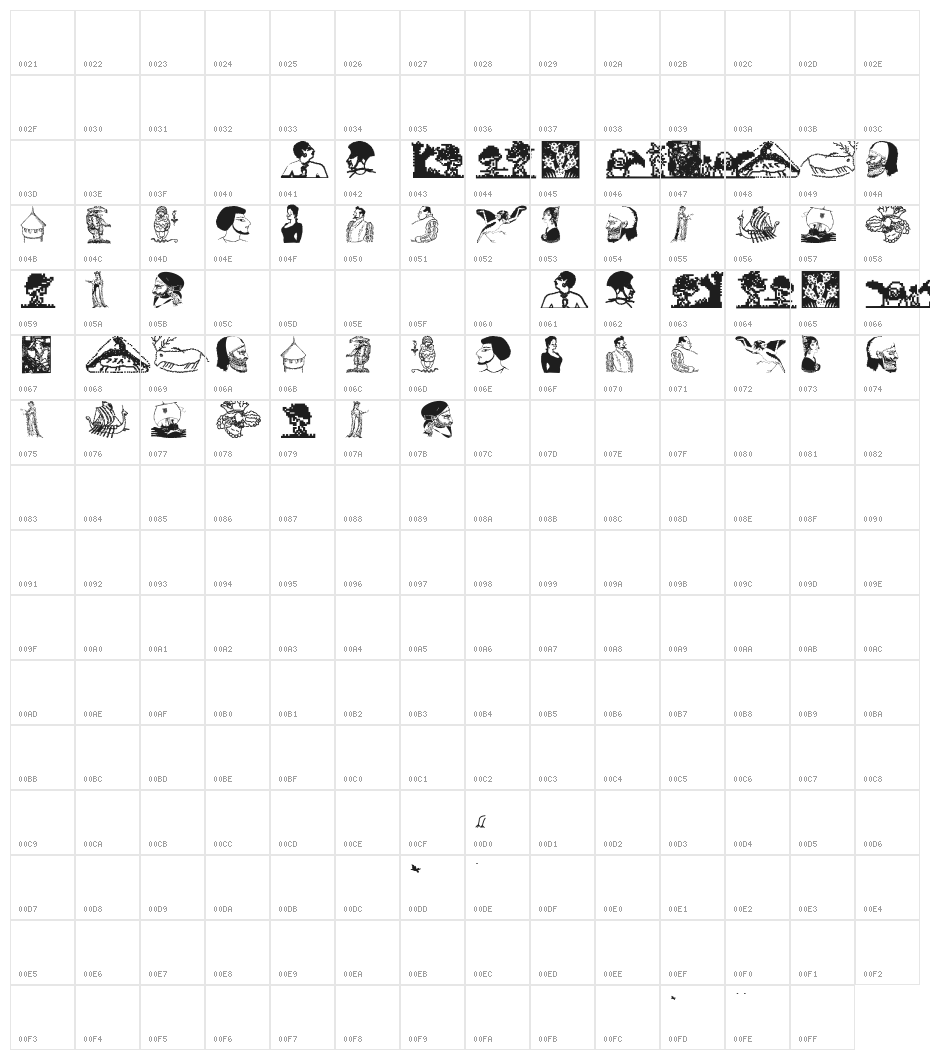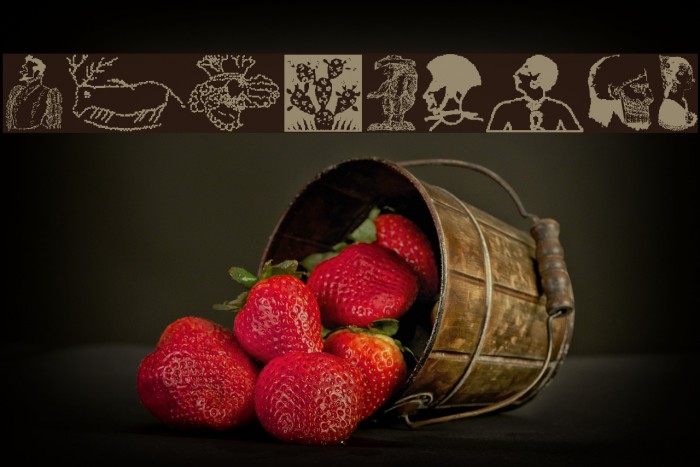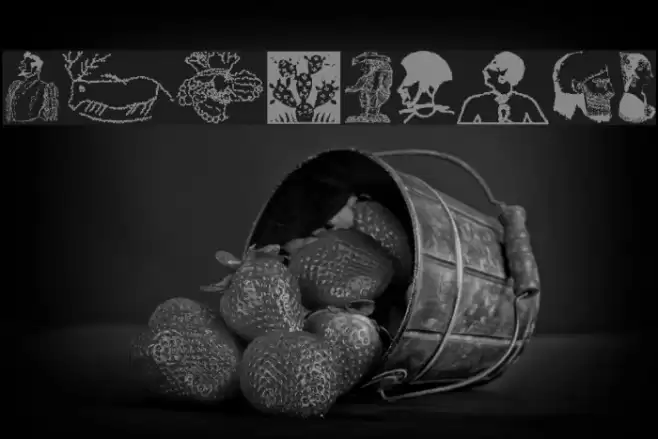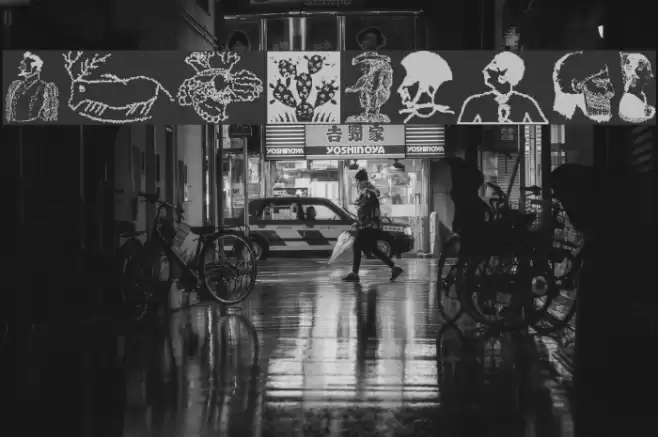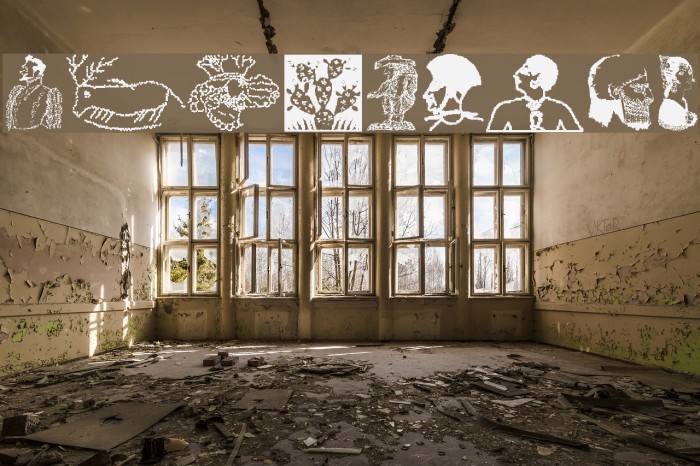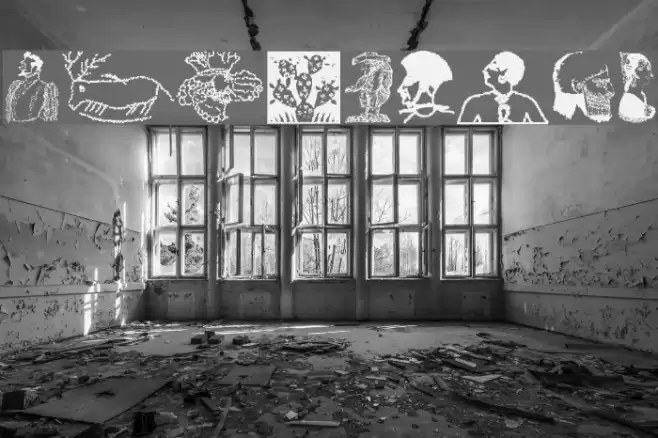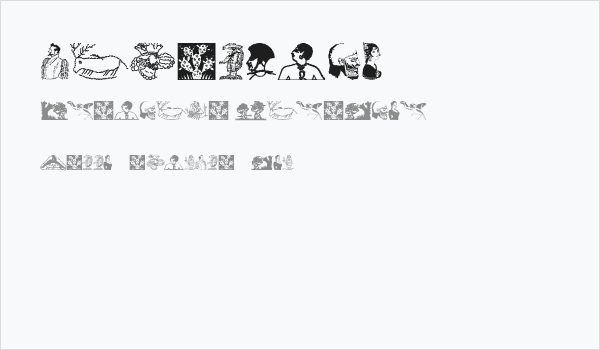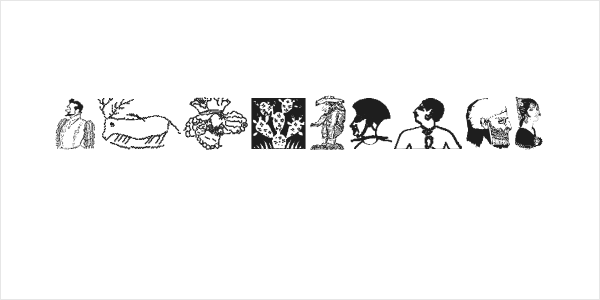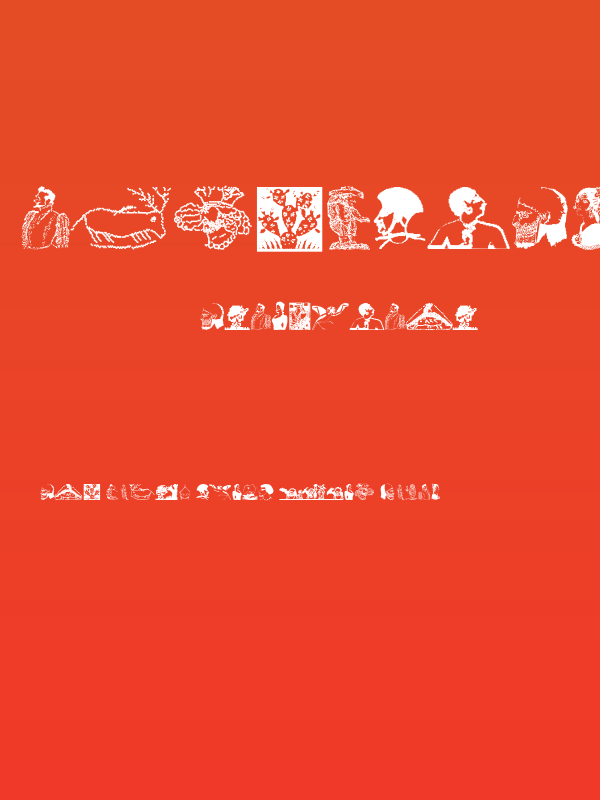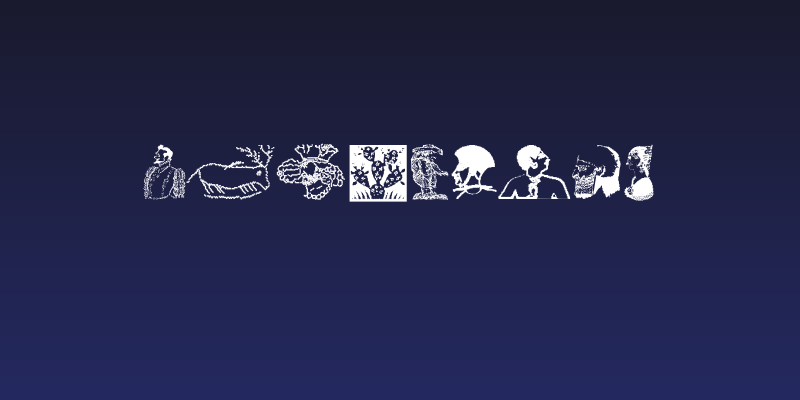
PixelBats Font
PixelBats Description
This is a decorative font featuring a series of unique and whimsical illustrations instead of traditional alphanumeric characters. Each character is represented by a distinct image, ranging from abstract designs to recognizable objects and figures. The style is playful and artistic, making it ideal for creative projects that require a touch of originality and visual interest. The illustrations are detailed and vary in complexity, offering a diverse range of visual elements that can be used to enhance design projects.
A decorative font with unique illustrative characters for creative designs from Uncategorized fonts.
- Proposed Projects: Ideal for artistic projects, graphic design, posters, and creative branding that require a unique visual element.
- Use Case: Logos, Posters, Artistic Projects